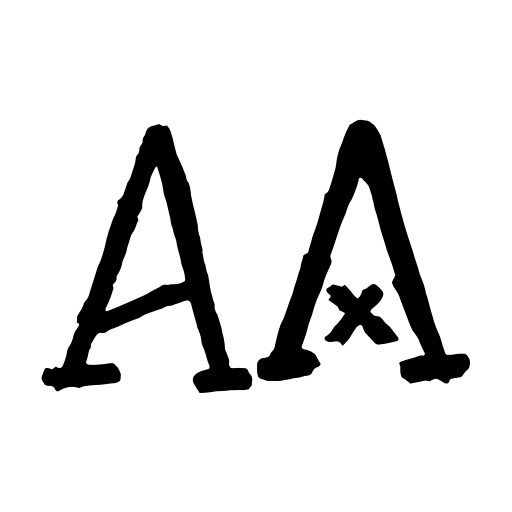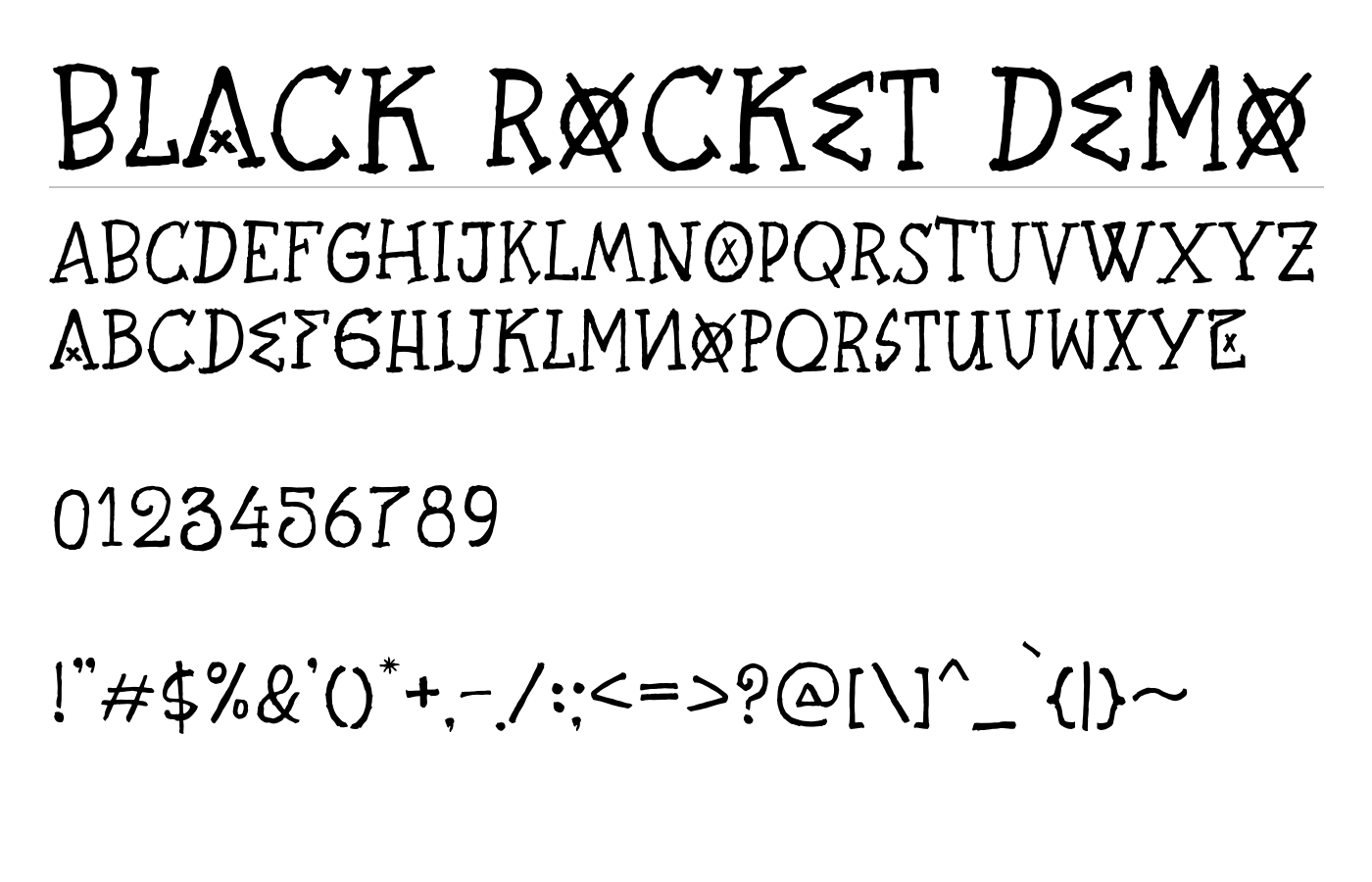
Black Rocket Demo is a quirky, hand-drawn serif font with uneven strokes and playful character shapes that give it a distinctive, casual feel. Its irregular letterforms and unique stylistic touches make it ideal for creative projects, such as posters, logos, and informal branding, where a fun and expressive tone is desired. This font works well in headlines or display uses, adding personality without compromising readability.
Black Rocket Demo Font
About Black Rocket Demo Font